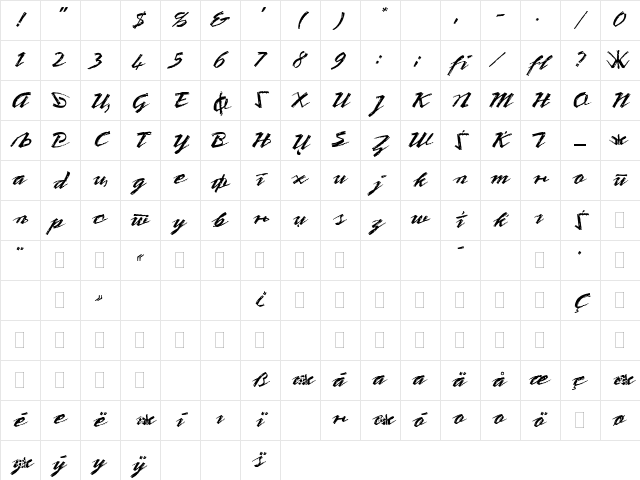
X_Bronx Black Free Font
X_Bronx Black
Design Context for X_Bronx
X_Bronx is a composed and adaptable typeface that performs quietly and consistently across a wide range of design contexts.